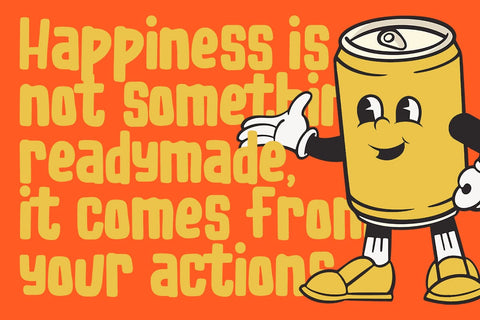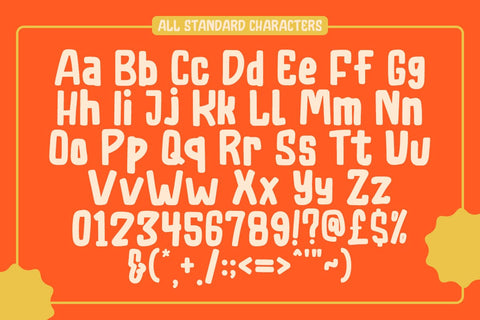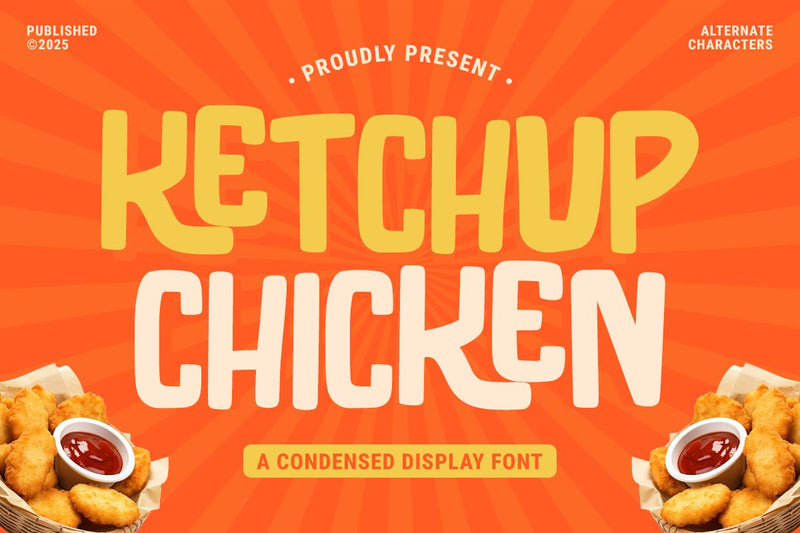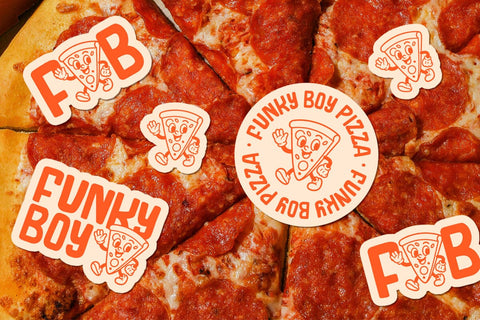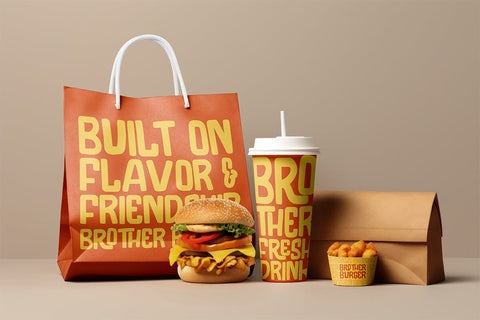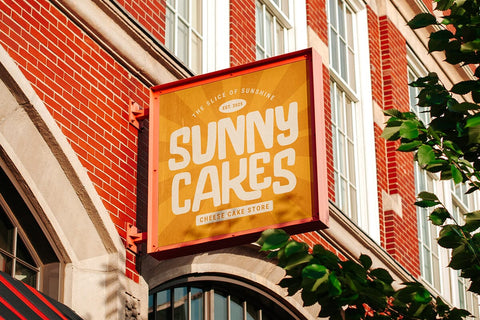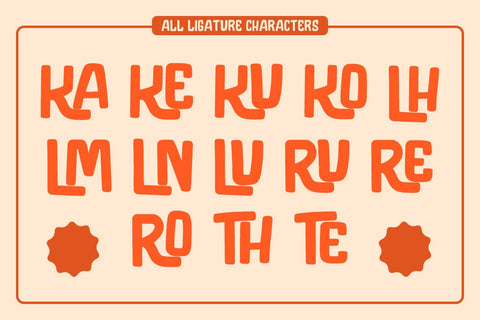
Ketchup Chicken - Food Font
Ketchup Chicken – Food Font is a bold and tasty display font that brings fun and flavor to your creative projects. Inspired by fast food vibes and playful dining moments, this font combines chunky shapes and energetic curves to create a lively, appetizing look.
Perfect for restaurant menus, food packaging, cafe logos, cooking shows, or snack-themed designs, Ketchup Chicken adds a deliciously fun touch wherever it’s used. Its bold letters make headlines pop while keeping a friendly and joyful feel.
With a design that feels juicy and full of character, Ketchup Chicken fits perfectly in projects about food, fun, and celebration. From burger joints and street food branding to playful kitchen crafts and digital graphics, it delivers a flavorful visual punch.
Bring taste and excitement to your designs with Ketchup Chicken – Food Font. A perfect choice for creative work that’s bold, delicious, and full of personality.